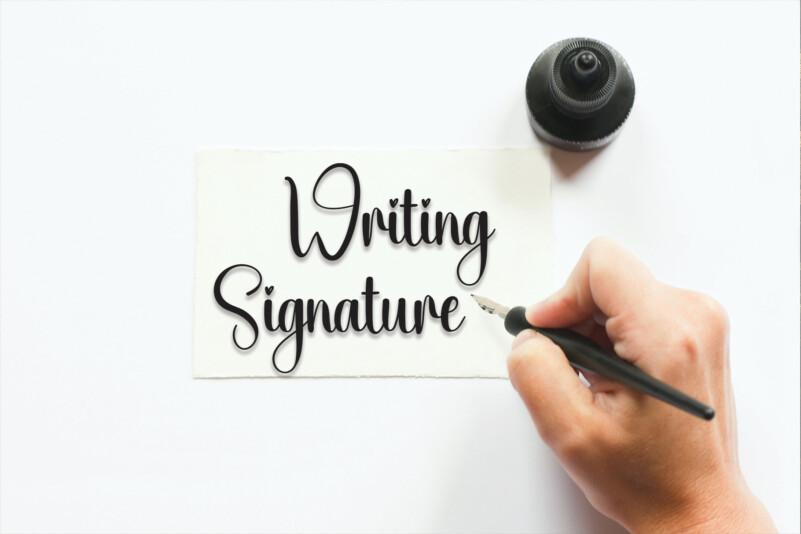
Light Script Font
Light Script Font is bold and expressive. Its thick and solid lines make it easy to read and its conservative bends aren’t overwhelming to the eyes. You can use this font for many purposes such as vintage logos, mugs, embroidery, prints, display, short text, packaging, cards, emblem, signage, and many more!